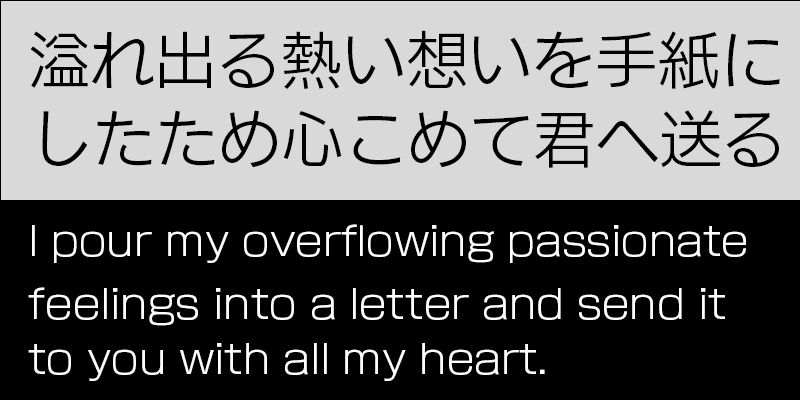
This typeface family has six weights, which can be effectively used for a wide range of purposes such as body text and display lines.
TNOF Design developed the Shizuka Mincho and Shizuka Gothic typeface families with an emphasis on legibility and readability. Shizuka Mincho is meant to be used for body texts, and Shizuka Gothic with six weight variations can be used for a wide range of uses from body text to display headings.